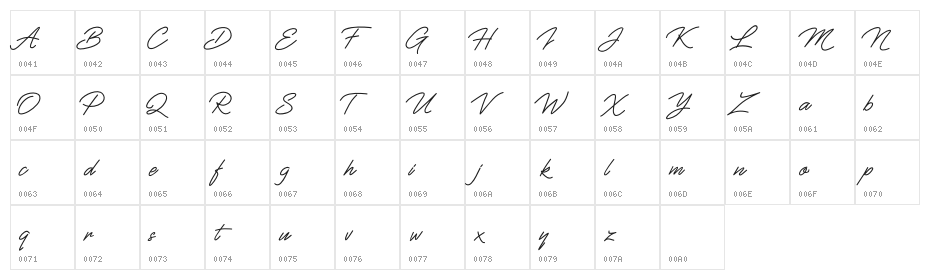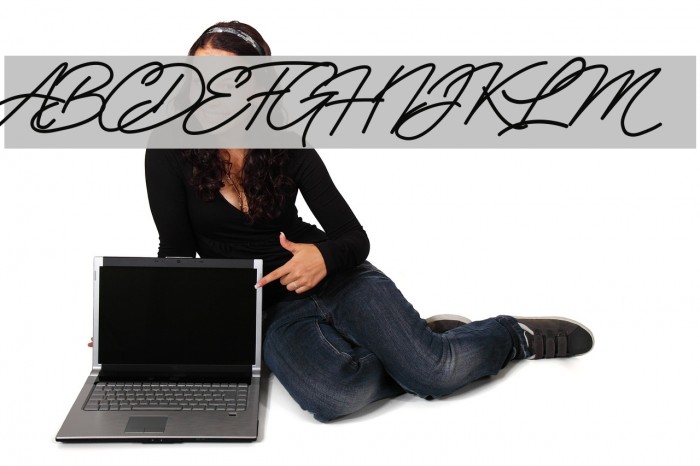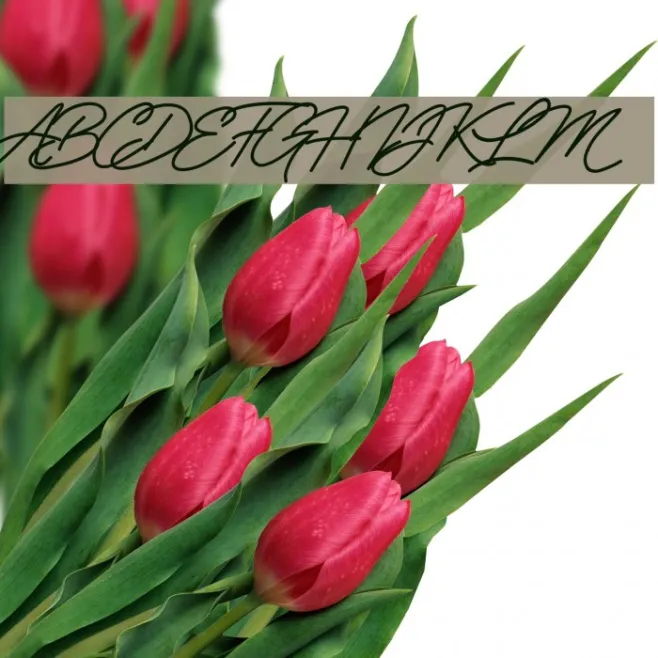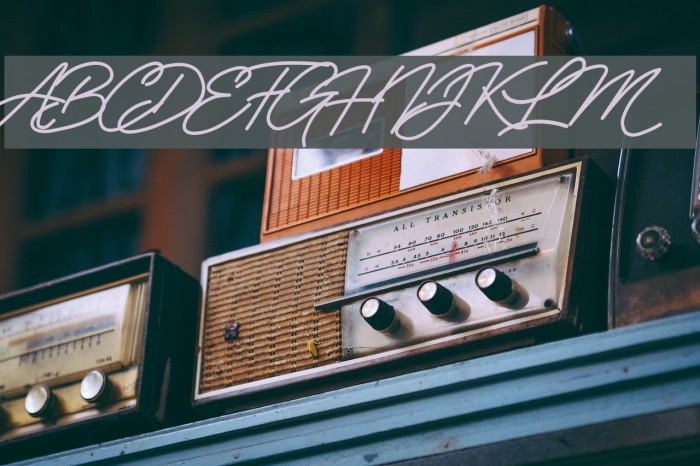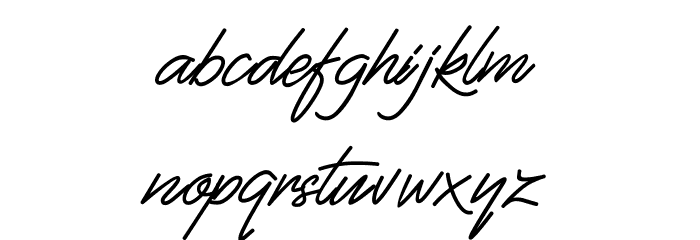
Fiftyes Font
Fiftyes Description
This elegant script font features fluid, cursive strokes that mimic the natural flow of handwriting. The uppercase letters are bold and sweeping, with intricate loops and flourishes that add a touch of sophistication. The lowercase letters maintain a consistent style, offering a harmonious blend of curves and lines. The font's overall appearance is both stylish and legible, making it suitable for a variety of design projects. Its artistic flair is complemented by a medium contrast in stroke thickness, providing a dynamic yet balanced look.
| Proposed Projects | Ideal for wedding invitations, greeting cards, branding, and elegant packaging designs. |